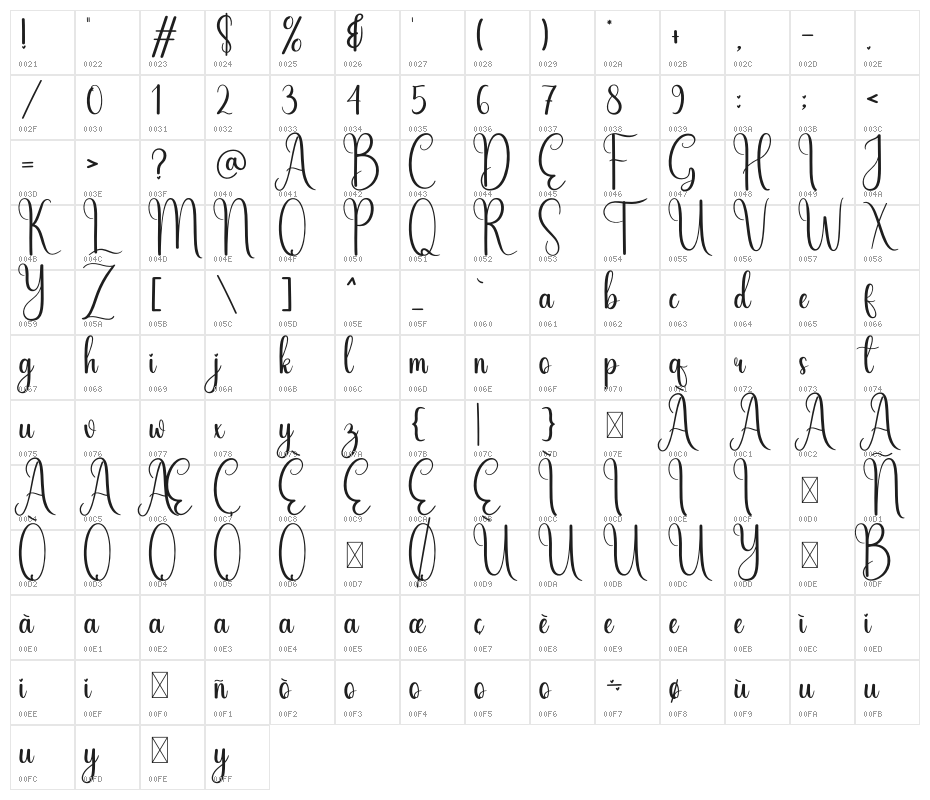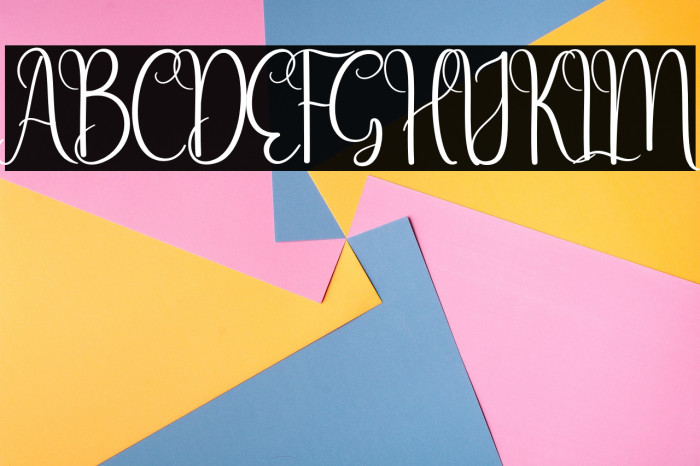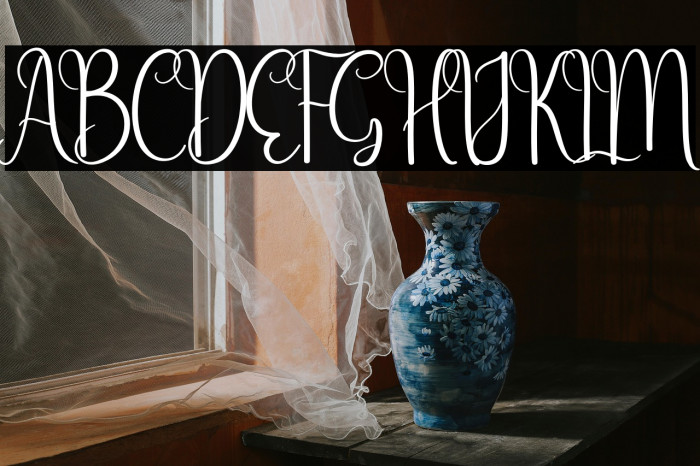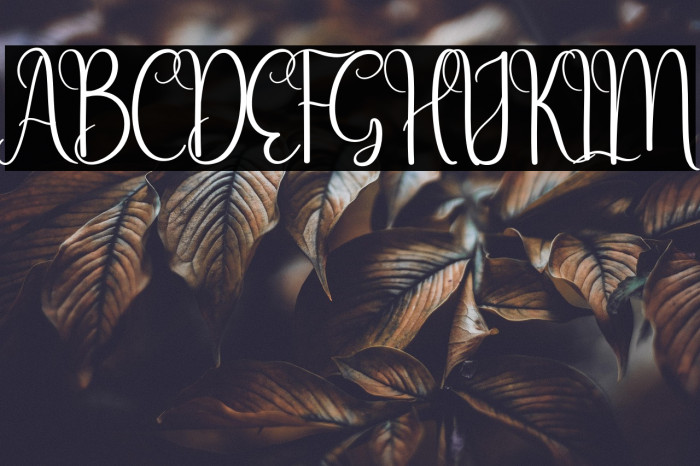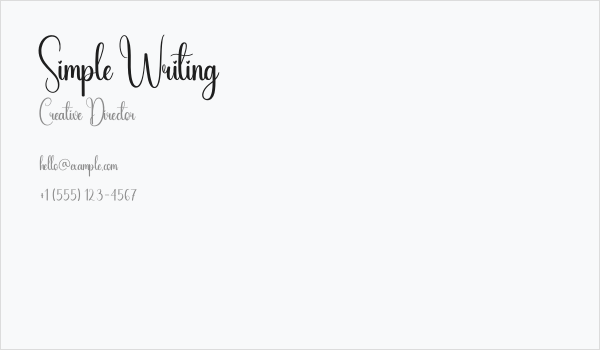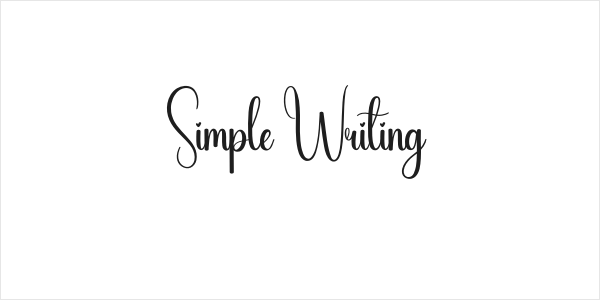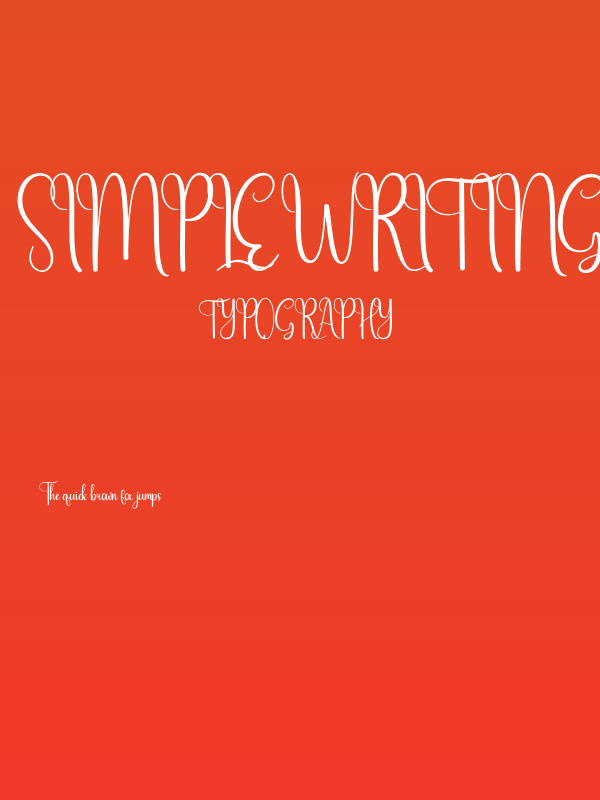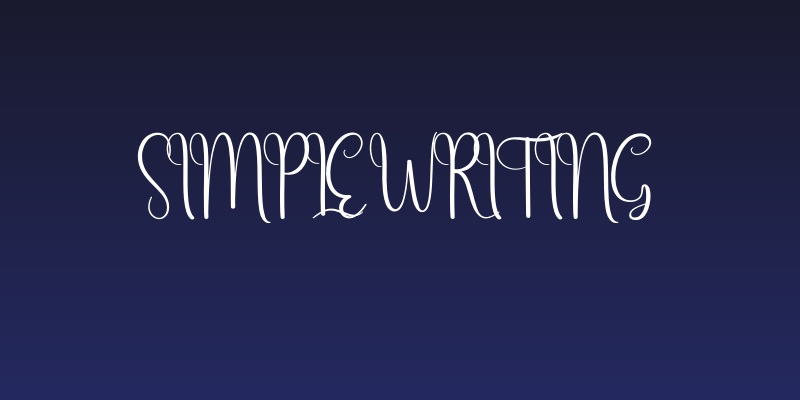
Simple Writing Font
Simple Writing Description
This font features an elegant and flowing script style, characterized by its graceful curves and loops. The uppercase letters are tall and slender, with intricate swirls that add a touch of sophistication. The lowercase letters maintain a consistent flow, enhancing readability while retaining an artistic flair. Numbers are clear and distinct, complementing the overall aesthetic. Special characters are designed with the same attention to detail, ensuring a cohesive look across all glyphs. The font's delicate strokes and ornamental elements make it ideal for projects that require a touch of elegance and creativity.
| Use Case | Logos, Invitations, Decorative text |
| Proposed Projects | Ideal for wedding invitations, greeting cards, branding, and decorative projects. |